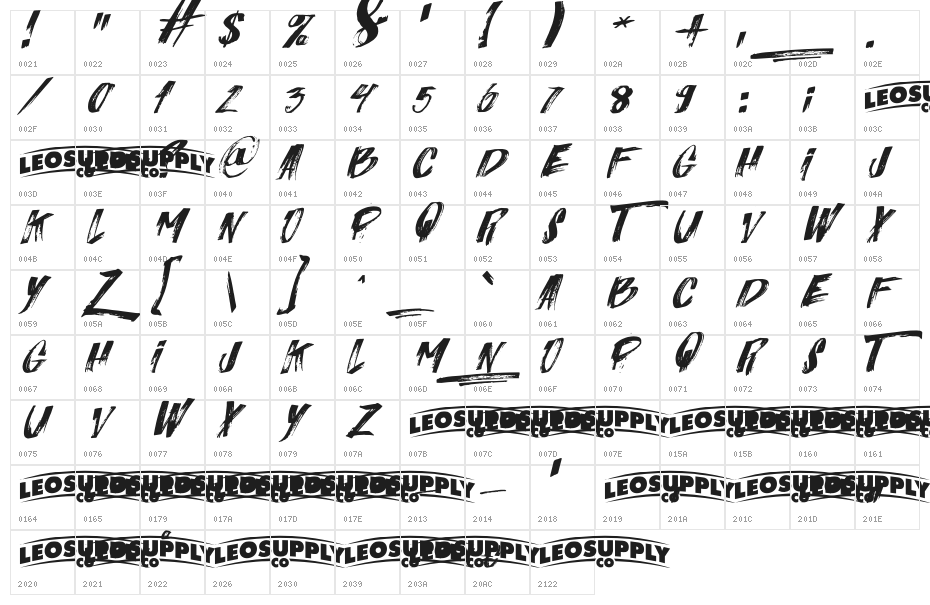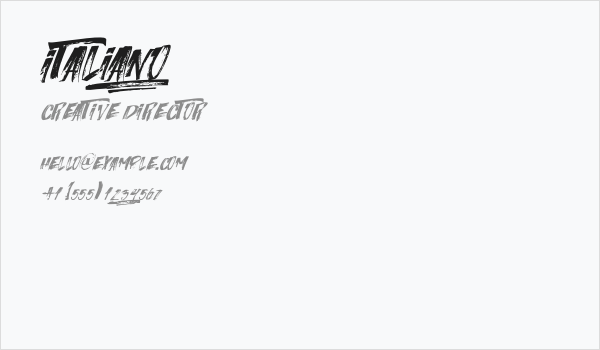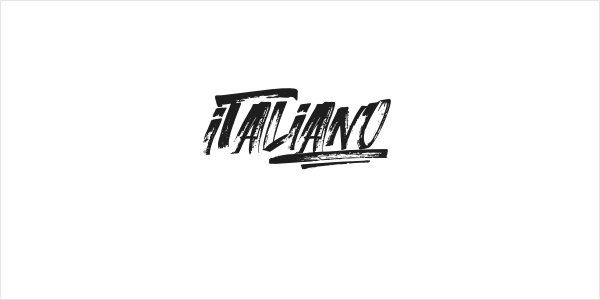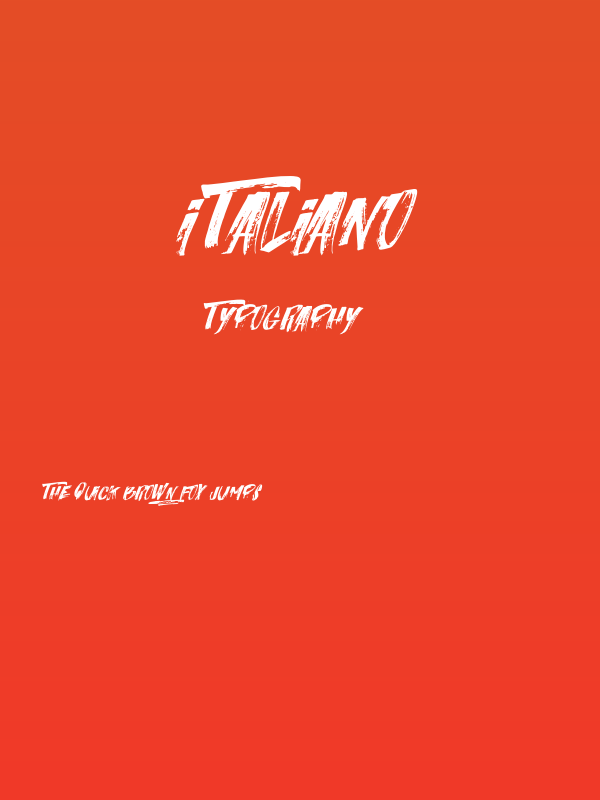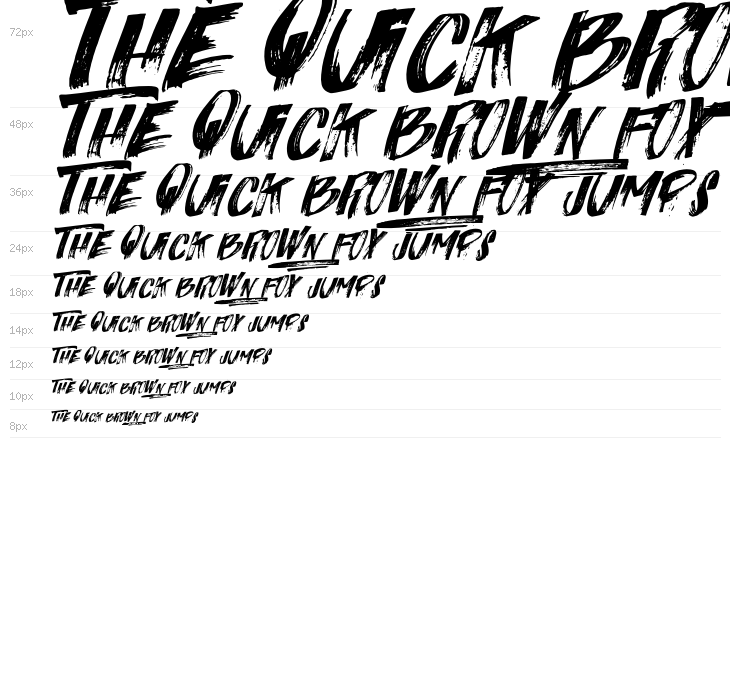
Italiano Font
Italiano Description
This font features a bold, brushstroke style with a dynamic and energetic appearance. The letters are crafted with a rough, textured edge, giving them a hand-painted look. The uppercase and lowercase characters maintain a consistent style, with exaggerated angles and a sense of movement. The numbers and special characters follow the same aesthetic, ensuring a cohesive design throughout. This font is ideal for projects that require a bold statement, capturing attention with its raw and artistic flair.
| Overall Style | Modern, Artistic |
| Proposed Projects | Ideal for posters, album covers, branding, and any project needing a bold, artistic touch. |